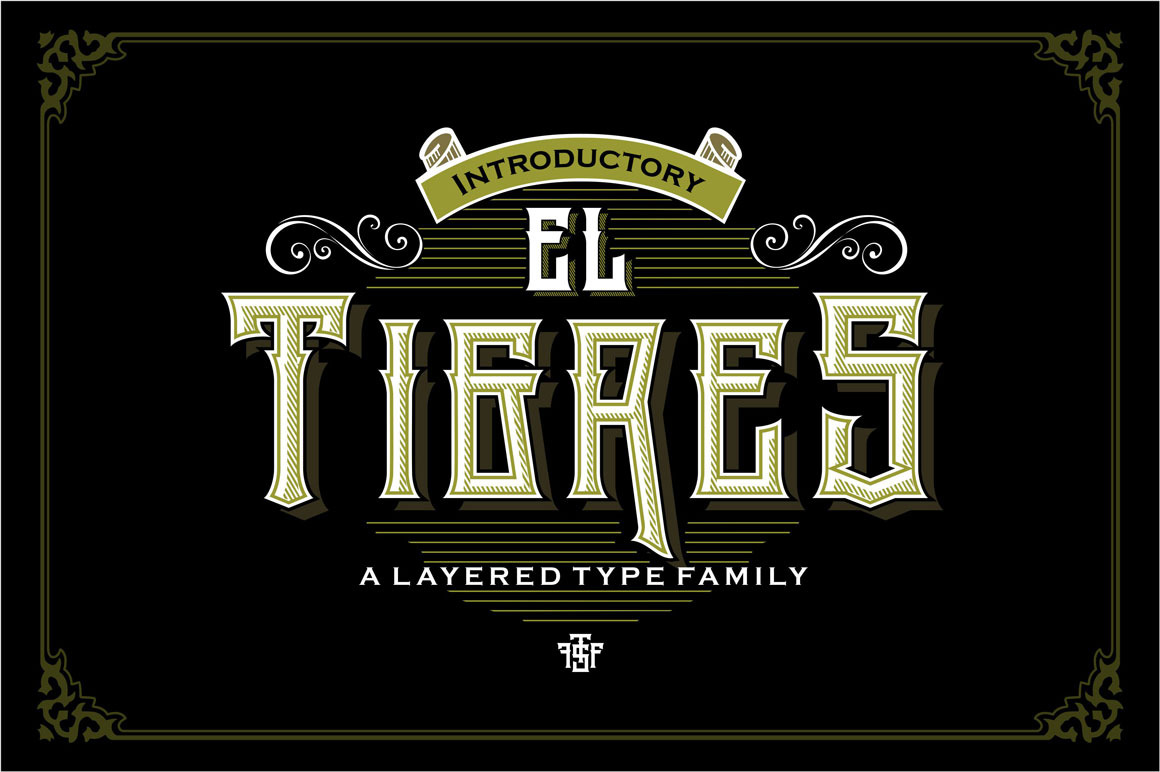
El Tigres Typeface
Introducing one collecting type
The name is El Tigres , it's come with layered type family with 5 Layer to combine
- El Tigres,
- El Tigres ins one
- El Tigres ins two,
- El Tigres shadow one and
- El Tigres shadow two. make a different style with combine a layer.
Inspired by Ephemera design and Poster, 50’s, 60’s, 70’s it’s have a detail , strong shapes and good looking for Old and Vintage design , Logotype, Letterhead, Titles, Poster , extreme game martial art and more.